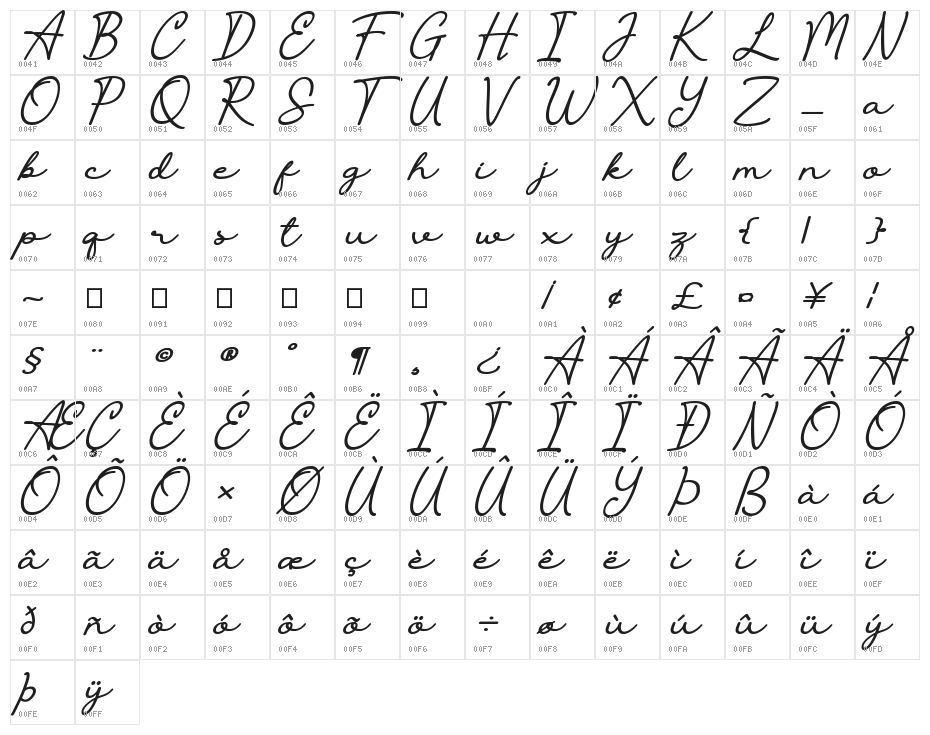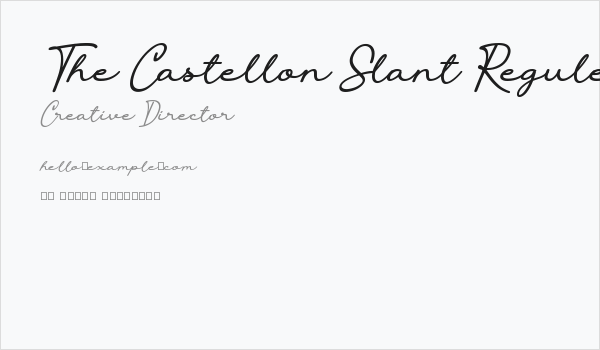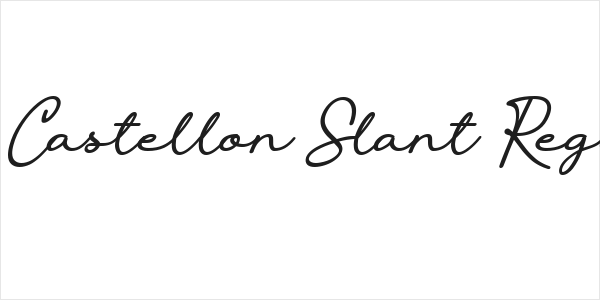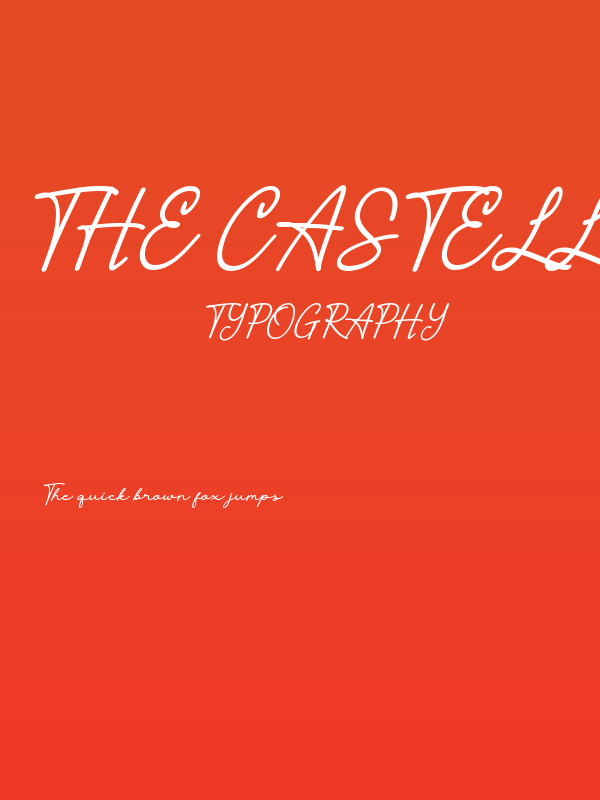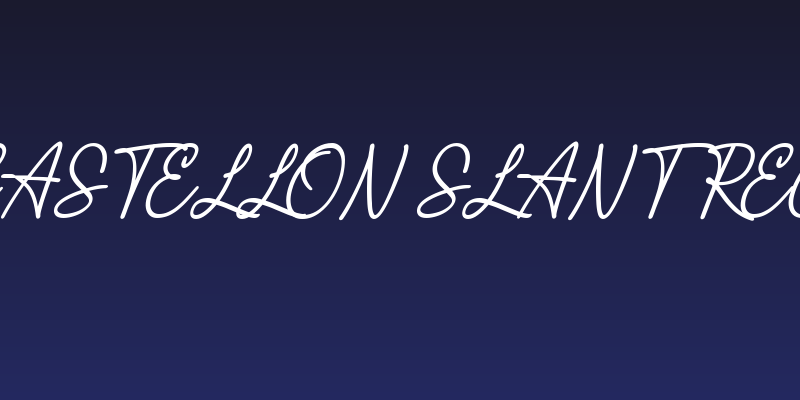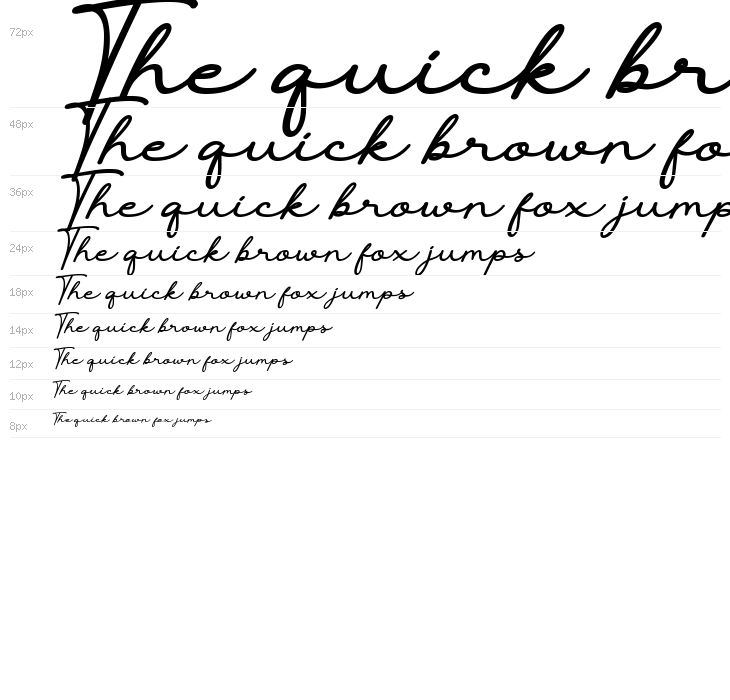
The Castellon Slant Reguler Font
The Castellon Slant Reguler Description
This elegant script font features a flowing, cursive style with a consistent slant, giving it a dynamic and sophisticated appearance. The uppercase letters are bold and slightly elongated, while the lowercase letters maintain a smooth, connected flow, enhancing the script's readability. The font's design is characterized by its graceful curves and loops, which add a touch of elegance and charm. The characters are well-spaced, ensuring clarity and legibility, even in smaller sizes. This font is ideal for projects that require a personal, handwritten touch, such as invitations, greeting cards, and branding materials.
| Overall Style | Elegant, Handwritten |
| Use Case | Logos, Invitations, Personal stationery |
| Proposed Projects | Ideal for wedding invitations, greeting cards, branding, and personal stationery. |